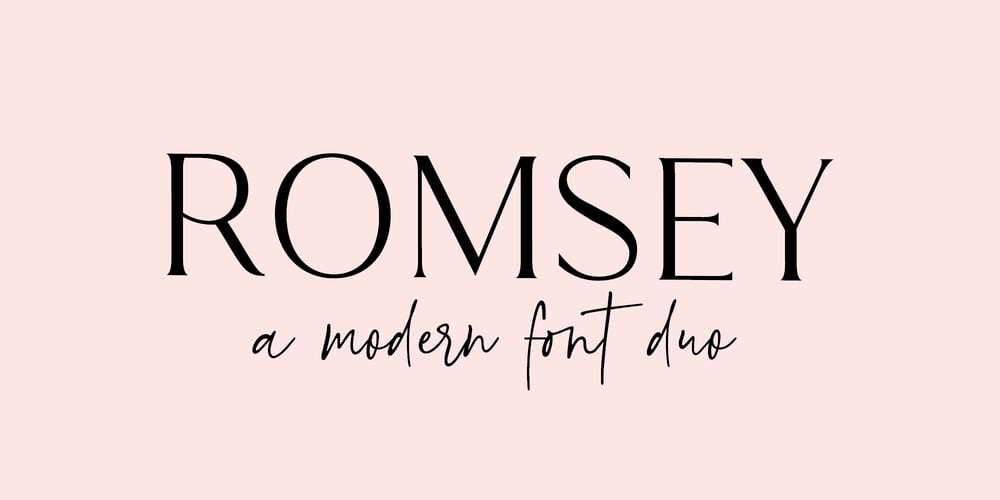
Romsey Duo Font Family was designed by Dmitrii Chirkov and published by Supfonts. Romsey Duo contains 2 styles and family package options. Romsey is a modern and minimalistic serif font combined with a sloppy handwritten font. This combination creates a clean and luxurious style in your designsThanks so much for checking out my shop, and please get in touch if you have any questions!Romsey Font Features:- Full Set of standard alphabet and punctuation- Handwritten ligatures- PUA Encoded – no special software needed to access extra characters- Multilingual Characters